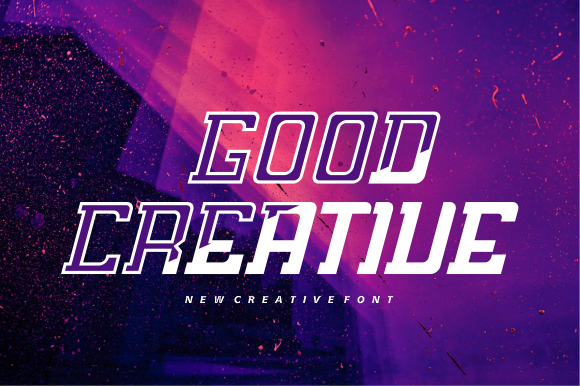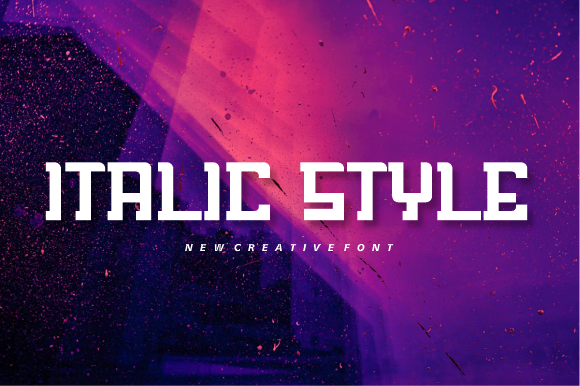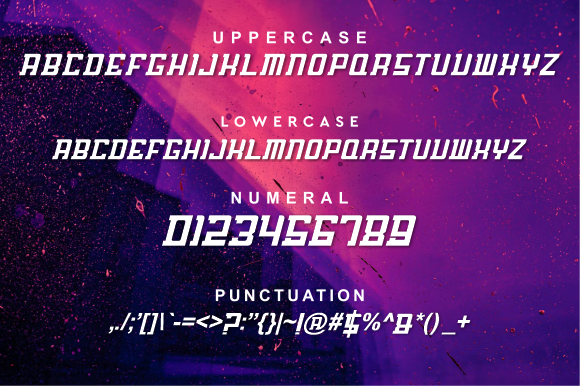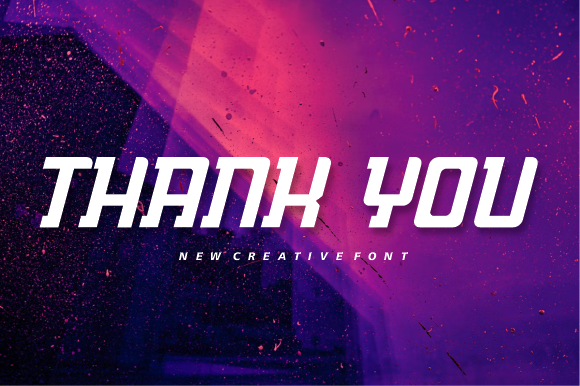
Introduction to Over Creative Font
Have you ever been in the middle of a design project, pouring your heart and soul into it, only to feel like something’s missing? You know, that spark that takes your design from good to great? For designers, that moment is what makes all the hard work worth it. It’s the thrill of creating something unique and eye-catching, and that’s exactly what the Over Creative Font is all about.
This modern display font is a game-changer for any creative project, from branding and logo design to t-shirt printing and game design. Its bold and authentic style is perfect for making a statement and standing out in a crowd. With its high-quality design and transparent background, it’s the perfect design resource for designers looking to take their projects to the next level.
Key Features of Over Creative Font
- Unique and creative typography with a wide range of styles, perfect for any design project.
- Designed specifically for creative projects, including digital art, graphics, and print materials.
- Perfect design resource for graphic designers, artists, and anyone looking for a unique and creative font.
Honest Review: Over Creative Font
As a designer, I’m always on the lookout for high-quality fonts to elevate my creative projects. I recently came across the Over Creative Font and was excited to put it to the test.
- Unique and Creative Design: The Over Creative Font has a distinctive style that’s perfect for adding a touch of personality to my design work.
- High-Quality Rendition: The font’s crisp lines and smooth curves make it a joy to work with.
- Limited Font Sizes: I found that the font doesn’t have a wide range of font sizes available, which can be a limitation for designers working on complex layouts.
- Not Suitable for Body Text: The Over Creative Font is best suited for headings and titles, as its unique style can be overwhelming for body text.
Overall, the Over Creative Font is a solid addition to any designer’s toolkit. While it has its limitations, its unique style and high-quality rendition make it a great resource for creative projects. Just be mindful of its limitations and use it judiciously.
For the best results, use the Over Creative Font on a transparent background to create a clean and modern look. Experiment with different font sizes and styles to add visual interest to your design.
The Over Creative Font is ideal for creative projects such as branding, marketing materials, and social media graphics. Its unique design makes it perfect for adding a touch of personality to your designs.